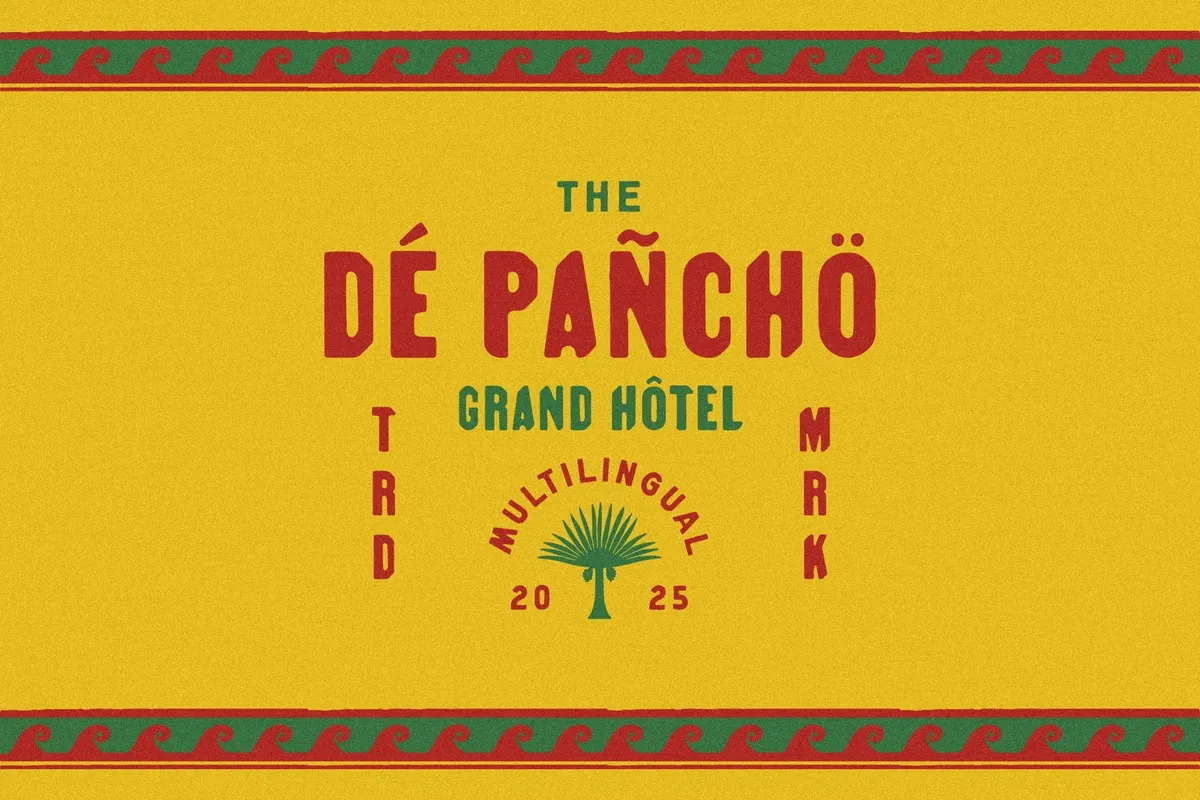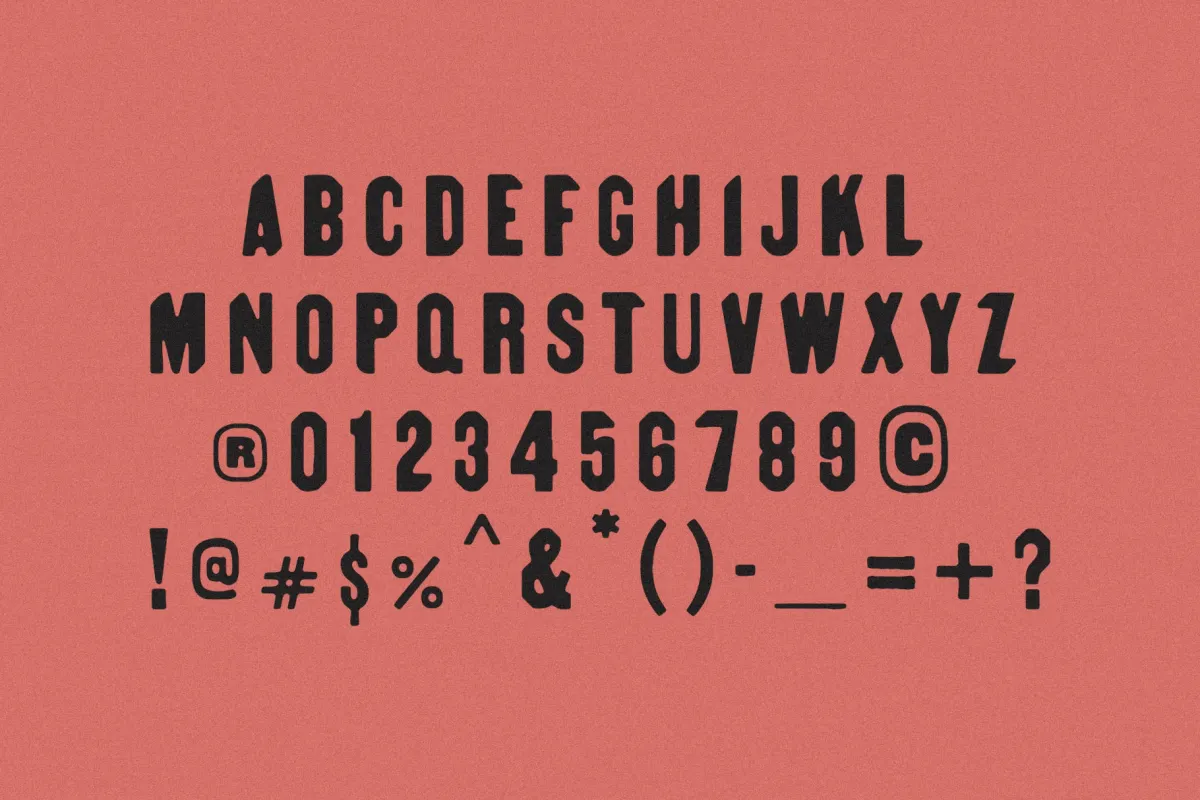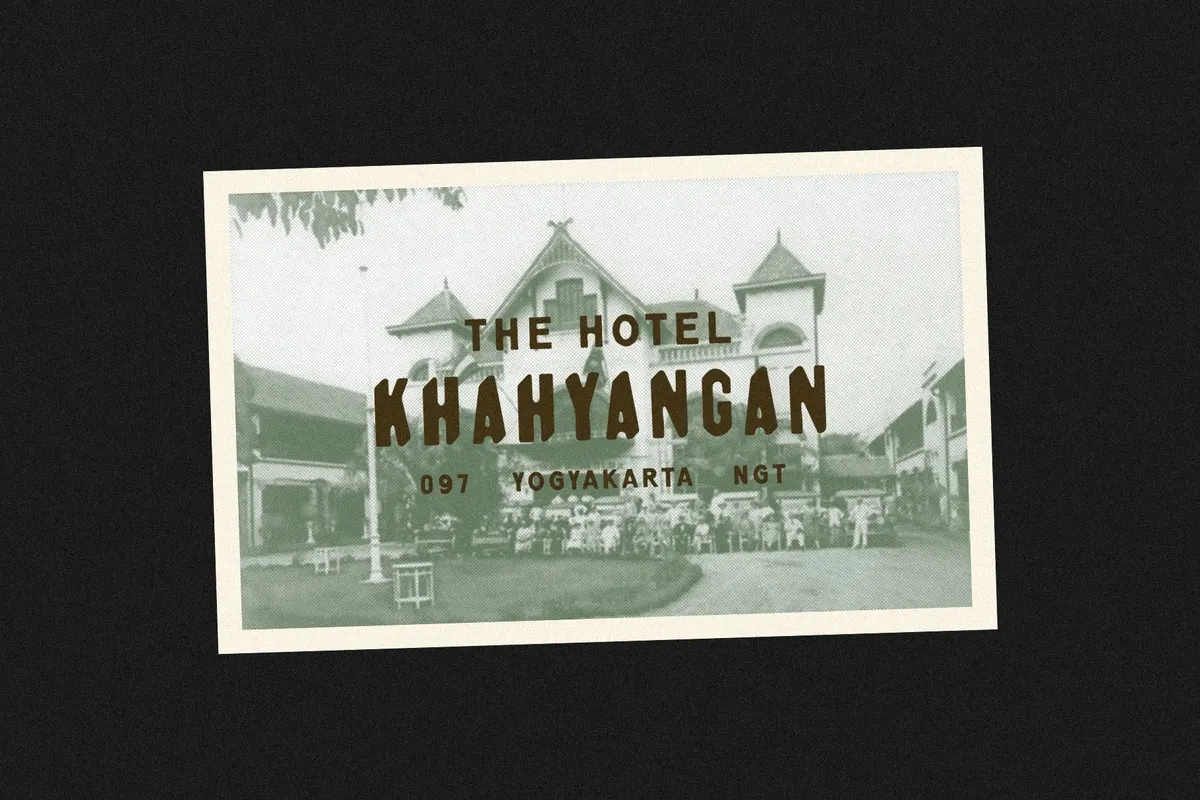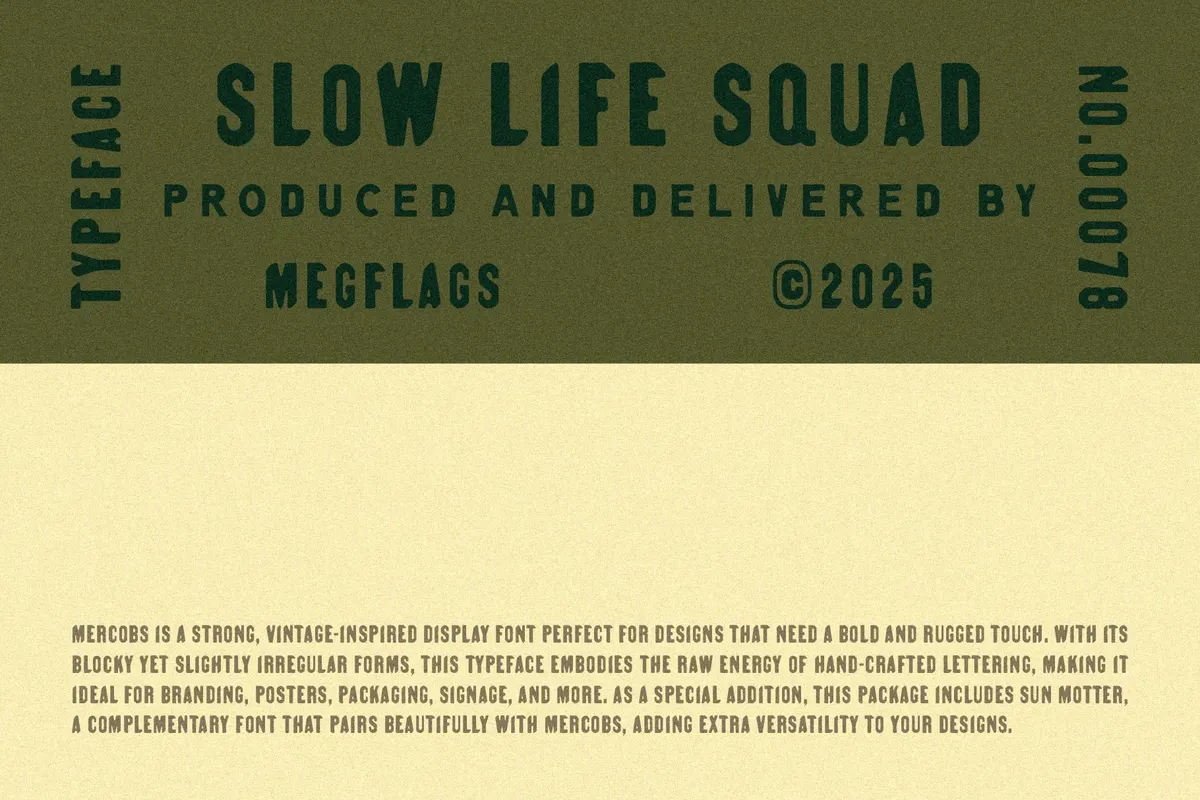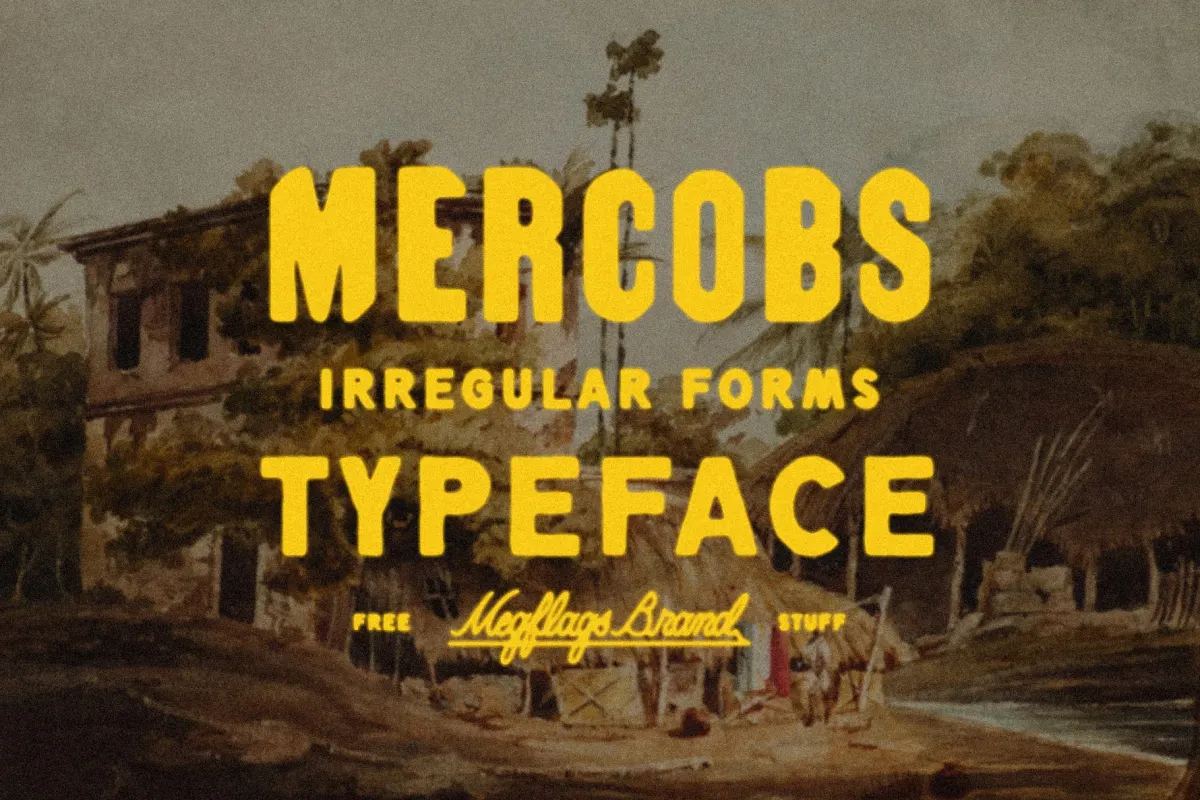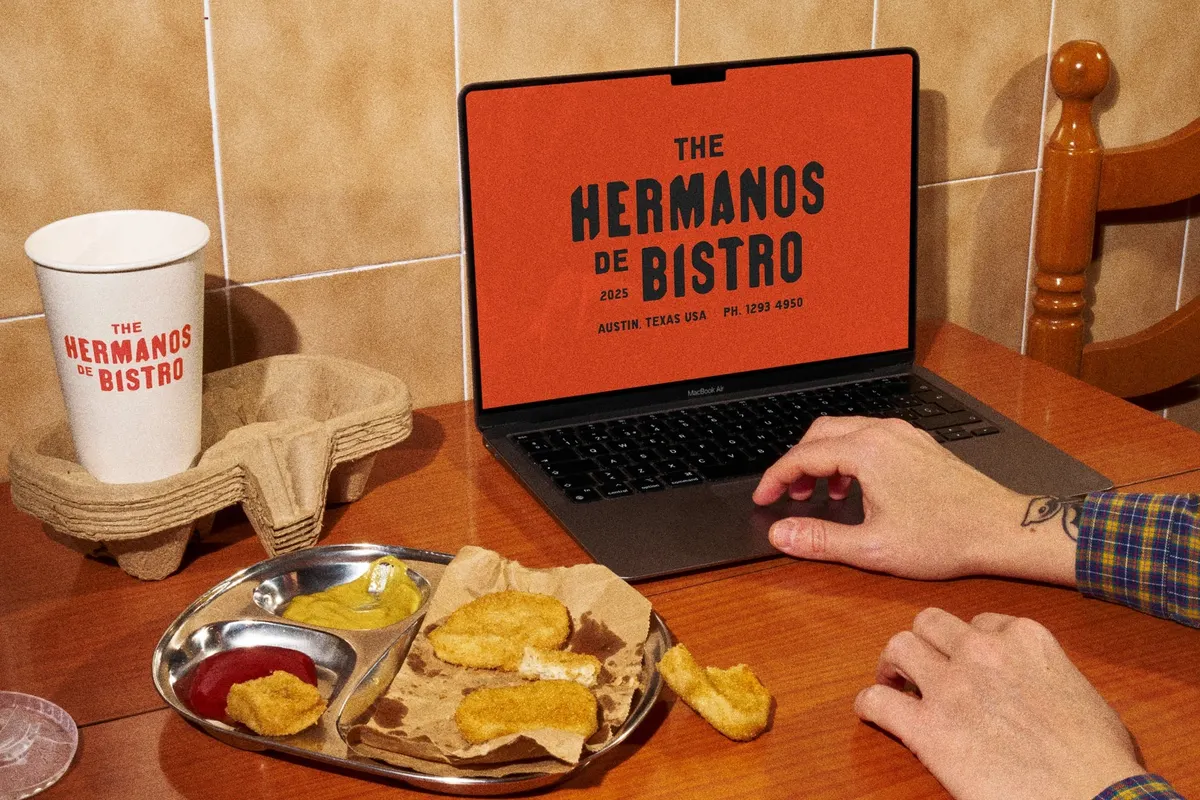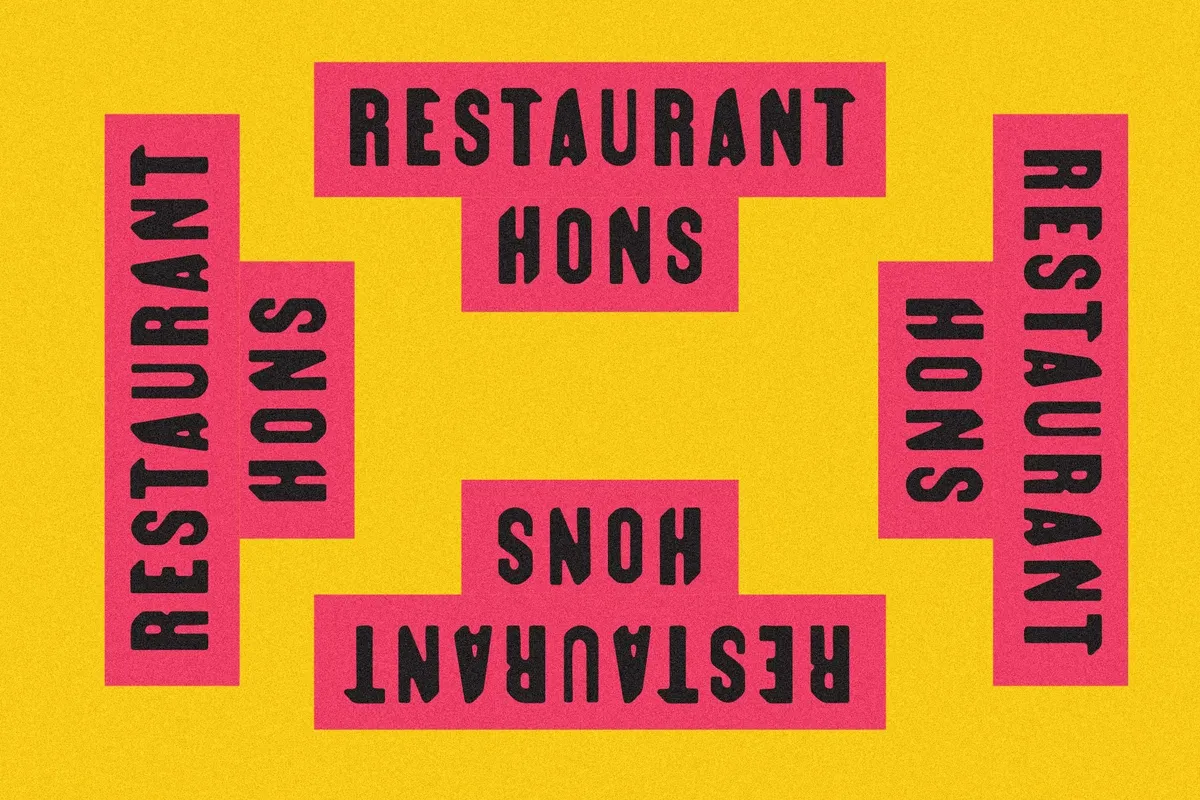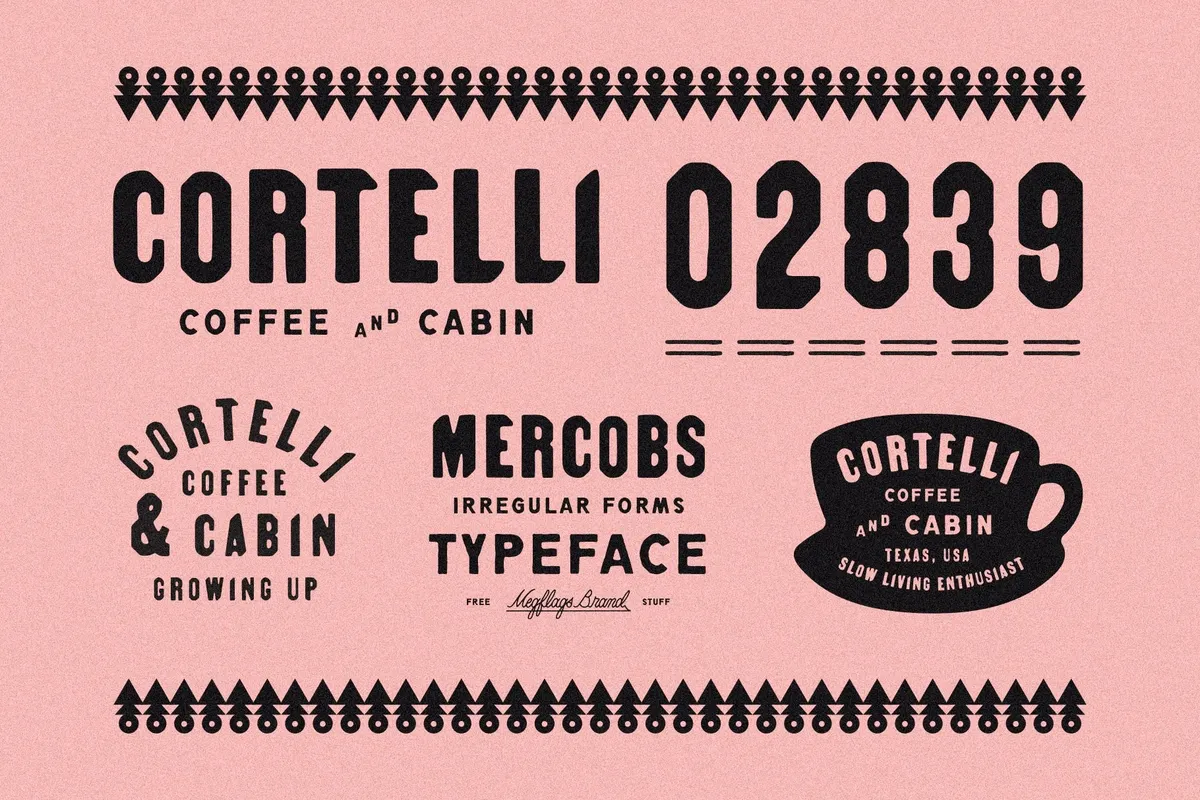
Mercobs Font
Mercobs
SunMotter
Mercobs is a heavyweight display face with irregular forms. It draws from hand-routed shop signs and mid-century woodtype. Thick strokes, clipped curves, and squared bowls create a compact silhouette that lands loud and steady. The letters keep their texture at poster scale and stay legible on small patches and caps.
You must pair it with the included Sun Motter script for a gruff-and-smooth combo that works across branding, apparel, and packaging.
- Workwear programs — woven labels, neck prints, care cards.
- Beverage and pantry goods — hot-sauce sleeves, coffee tins, bottle caps.
- Gig and festival posters.
- Outdoor and utility — enamel mugs, knife tins, camp signage.
- Cafés and diners — menu boards, window vinyl, receipt headers.
- Sports clubs — badge typography, seat numbers, season tickets.
- Craft markets — rubber stamps, price chips, table signage.
- Heritage retail — storefront glass, loyalty cards, hangtags.
- Editorial spreads — feature openers, short pull quotes, back-page notes.
- E-commerce — hero headlines, collection banners, sale badges.
- Stickers and pins — die-cut slogans, lapel pins, helmet decals.
- Restaurant collateral — coasters, matchbooks, takeout bags.
- all-caps alphabet with numerals and punctuation.